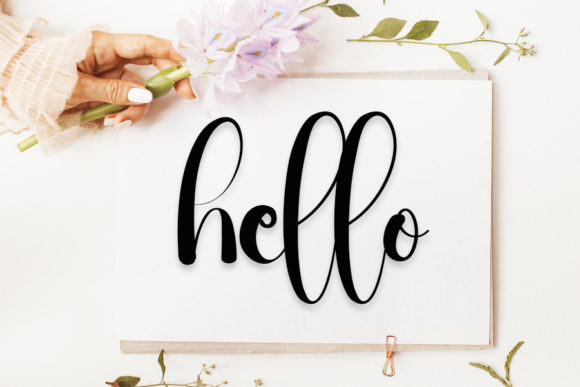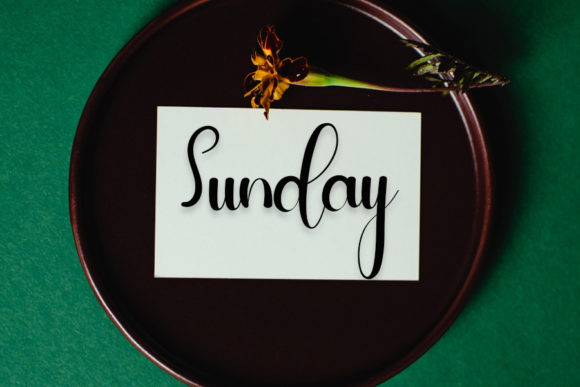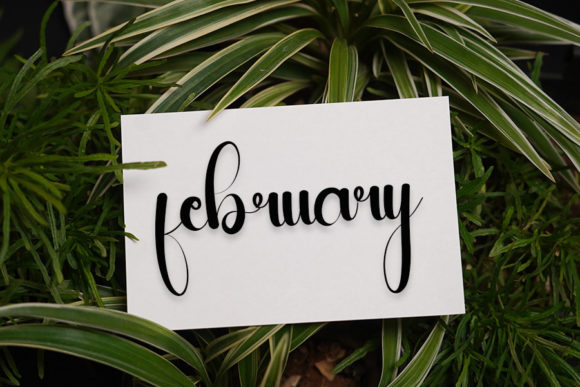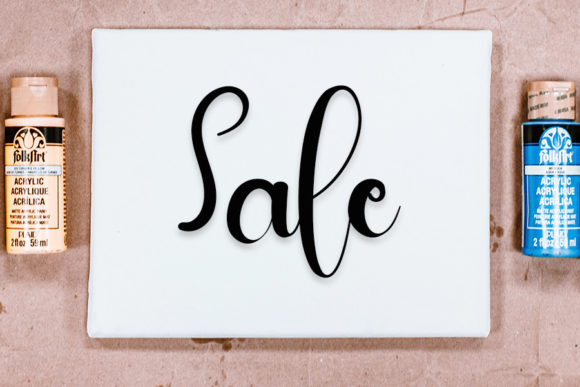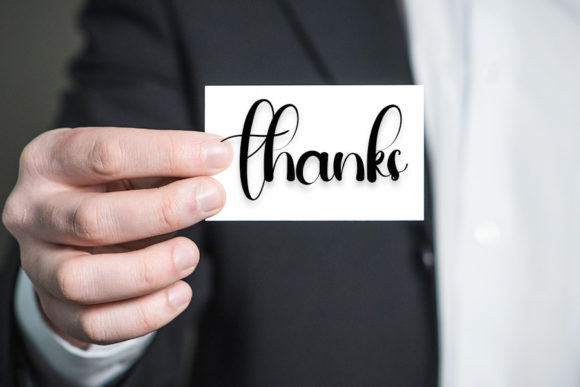
Hello Font
About Hello Font
“Hello” is a sweet and delicate handwritten font crafted to bring a sense of daintiness and joy to your designs. With its delicate strokes and joyful demeanor, this font is an ideal choice for projects that require a romantic and personalized touch, such as wedding invitations, cards, and various other designs.
The sweet and delicate nature of “Hello” enhances its versatility, making it suitable for a variety of creative endeavors. Whether you’re expressing love, gratitude, or other sentiments through cards or invitations, “Hello” adds a warm and personal touch to your messages.
The handwritten charm of this font makes it particularly well-suited for projects that demand authenticity and a romantic aesthetic. Its dainty appearance enhances the overall appeal of wedding invitations, creating an atmosphere of romance and joy for the special occasion.
In summary, “Hello” is more than just a font; it’s a sweet and delicate design asset that brings a romantic and personalized touch to your creative projects. Whether applied to wedding invitations or other design needs, “Hello” adds a delightful and romantic flair to every project it graces.